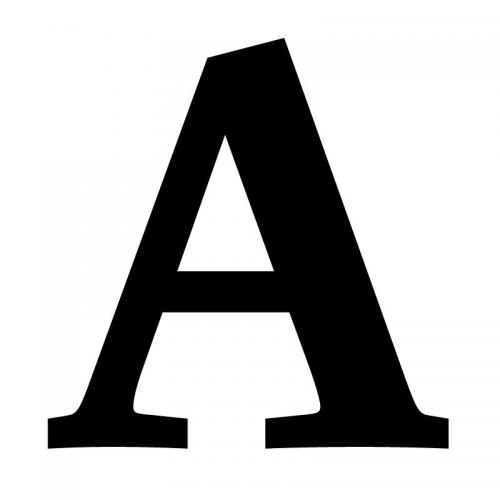
Serif is a font classification category, which includes fonts having serifs (i.e. small strokes regularly attached to the end of a larger strokes).
German: Antiqua
Italian: [carattere] graziato, (con grazie)
Polish: [pismo] szeryfowe